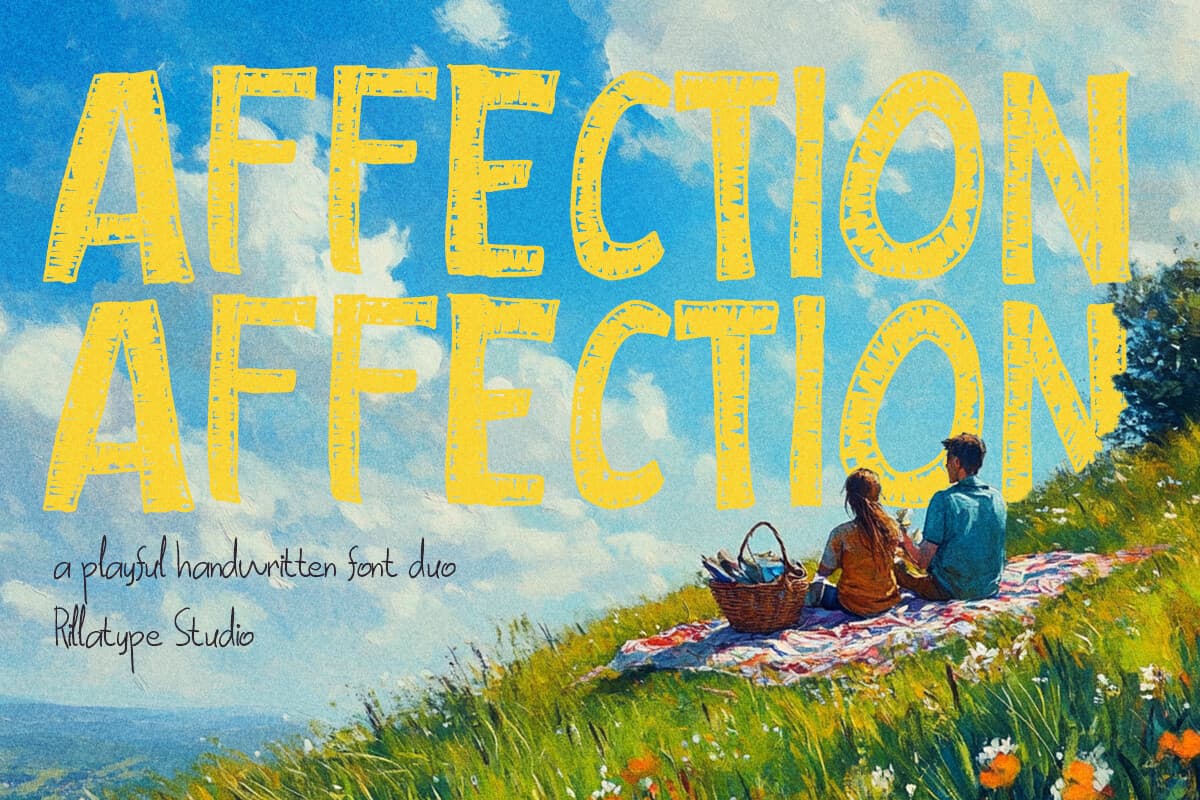
Affection Font
Introducing the Affection Font: A Playful Touch to Your Designs
In a world where digital communication often loses its personal touch, the Affection Font emerges as a delightful beacon of warmth and creativity. This charming typeface isn’t just a fon...